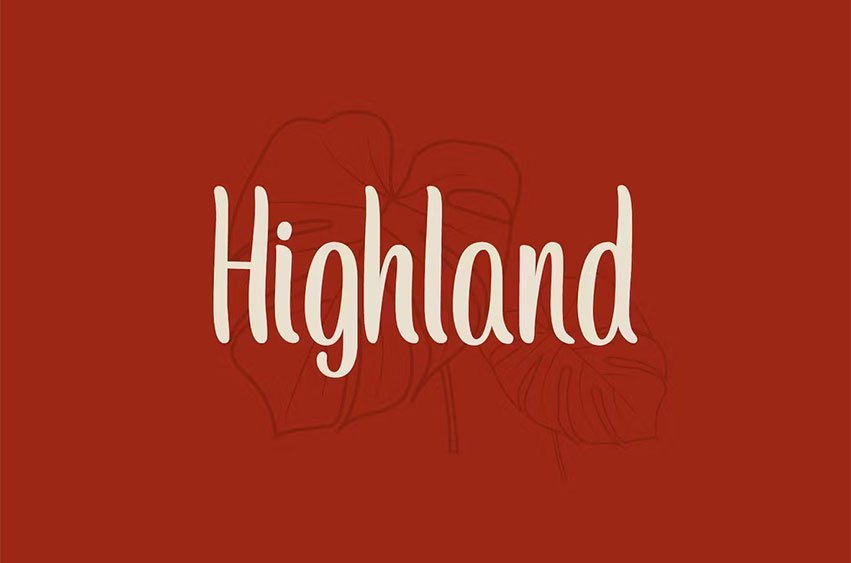
Highland Font new generation Handwritten Typeface. Highland Typeface created with the vision of to attract the audience to your brand. The finest details of this typeface are methodically and mathematically created. Highland is created with all the tasks of a corporate font and also for the usage in a variety of projects, including branding, logos, titles, headlines, posters, screens, display, digital ads, and everything else.